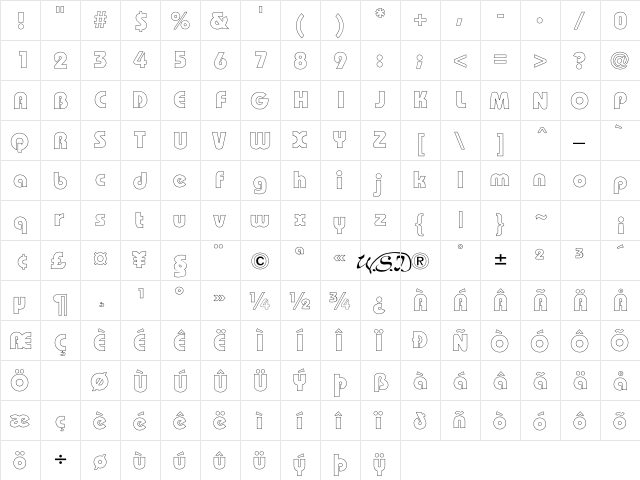
Bordeaux Blk Outline Regular
Design Context for Bordeaux Blk Outline Typeface
Bordeaux Blk Outline is built around its visual character rather than neutral utility — its distinctive forms are designed to make an impression at display sizes.
Font Pairing: Pair with a clean neutral sans-serif for body copy to let Bordeaux Blk Outline's character lead without overwhelming the composition.
Pro Tip: Treat Bordeaux Blk Outline as the centrepiece of your typographic hierarchy. One strong heading set in a decorative face can carry an entire layout.